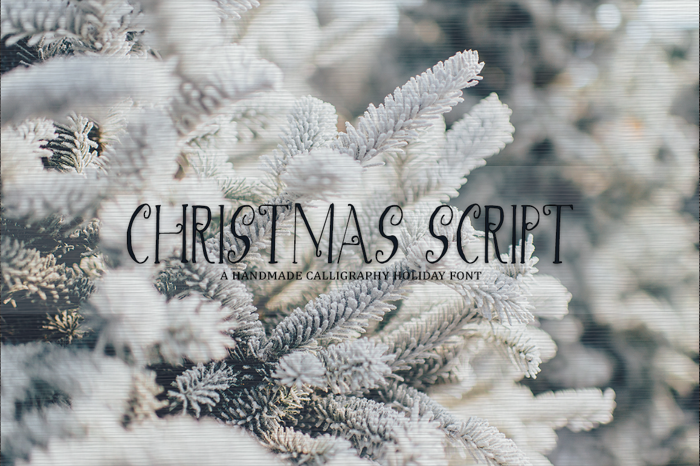
Christmas Script Font
Introducing Christmas Script a hand-scripted fonts, carefully designed to work together in harmony for creating masterful typographic designs in a flash!